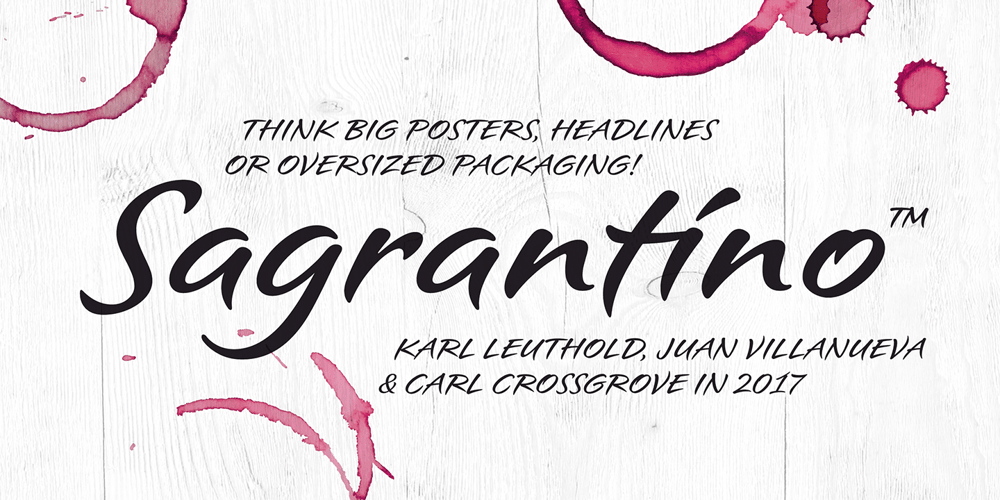
Sagrantino Font Family was designed by Carl Crossgrove, Karl Leuthold, Juan Villanueva and published by Monotype. Sagrantino contains 3 styles and family package options. Sagrantino™ shines at large sizes – and in vibrant colors. Think big posters, commanding headlines, massive banners and oversized packaging. Set headlines in the Highlight or Shadow designs and running copy in the Regular – all on the same page! Sagrantino could be called the Lava Lamp of fonts. It’s slick, glossy, retro and futuristic. Somehow, it’s fresh and quirky-classic at the same time. This is a design that challenges you to think outside the text box. In fact, Sagrantino is so lively, it took three Monotype typeface designers, Karl Leuthold, Juan Villanueva and Carl Crossgrove, to draw it. Because it’s a script, Sagrantino pairs perfectly with just about any other design – except another script. Maintain the futuristic retro vibe by combining Sagrantino with a typeface like Biome™ or Neo™ Tech. Looking for a counterpoint? Try a cool sans like Avenir® Next or Univers® Next. OpenType® Pro fonts of Sagrantino enable automatic insertions from a crowd of fancy ligatures and delightful alternate characters – in addition to offering an extended character set supporting most Central European and many Eastern European languages.